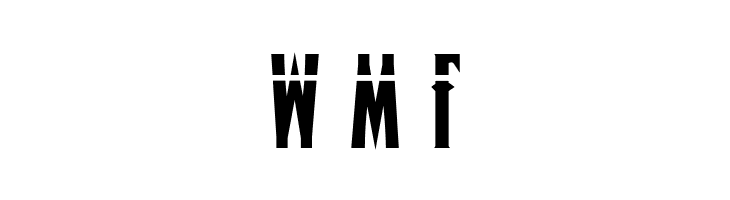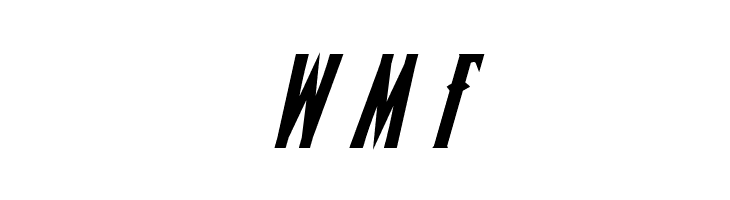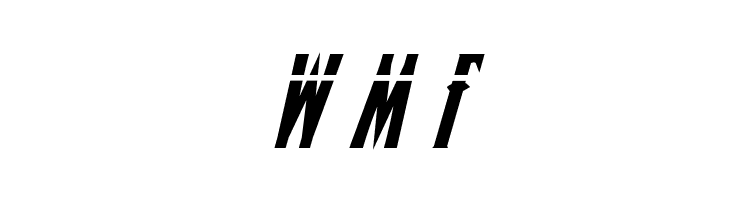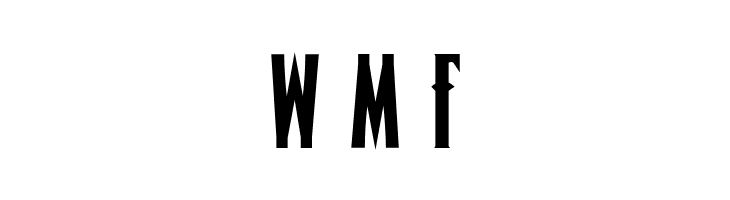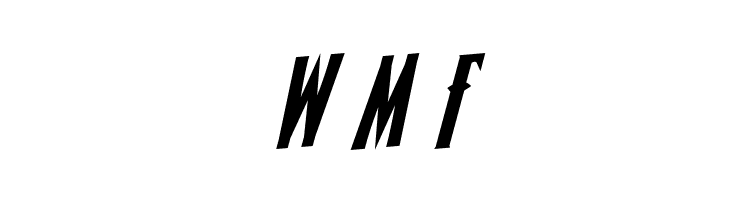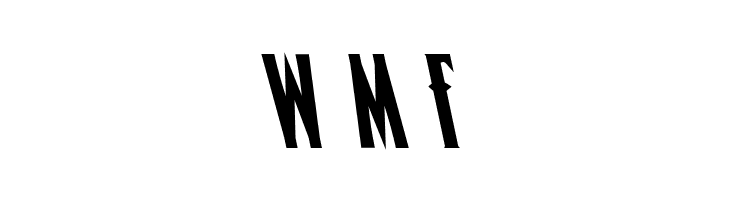
Komika Boss Font
Font by Apostrophic Lab
A bold, comic-inspired font with a playful, dynamic style and shadow effects.
VTC-GarageSale Font
A bold, playful font with a hand-drawn, cartoonish style.
Dire Wolf 3D Italic Font
Font by Daniel Zadorozny - www.iconian.com
A bold, 3D italic font with a rugged, dynamic style.
Komika Sketch Font
Font by Apostrophic Lab
A playful, hand-drawn sketch font with bold, rounded letters and a textured, 3D effect.
Ice Sans Bold Font
A bold, modern sans-serif font with rounded edges and balanced spacing.
WBXKomik Font
A bold, comic-style font with a playful, hand-drawn appearance.
tape deck Font
Font by Mike Wolf
A bold, 3D retro-futuristic font with geometric and angular design.
VTC-Karnival-Fat Font
A bold, playful font with thick, exaggerated strokes and a cartoonish flair.
Komika Display Wide Bold Font
Font by Apostrophic Lab
A bold, playful font with wide, rounded letterforms and a dynamic slant.
WOLF GANG ROUGH Font
Font by
wisnu
A bold, textured font with a vintage, hand-crafted appearance.
Wolf's Bane Expanded Italic Font
Font by Iconian Fonts - Daniel Zadorozny
A bold, expanded italic font with a dynamic and modern style.
WLM Modern Sans Regular Font
A modern, bold sans-serif font with a geometric and structured design.
Wolf's Bane Expanded Font
Font by Iconian Fonts - Daniel Zadorozny
A bold, angular font with a gothic-inspired style, perfect for dramatic headlines.
stonehenge Font
Font by Mike Wolf
A rugged, textured font with a stone-carved appearance.
WLM 1F Block Sans Regular Font
Wolfgang Font